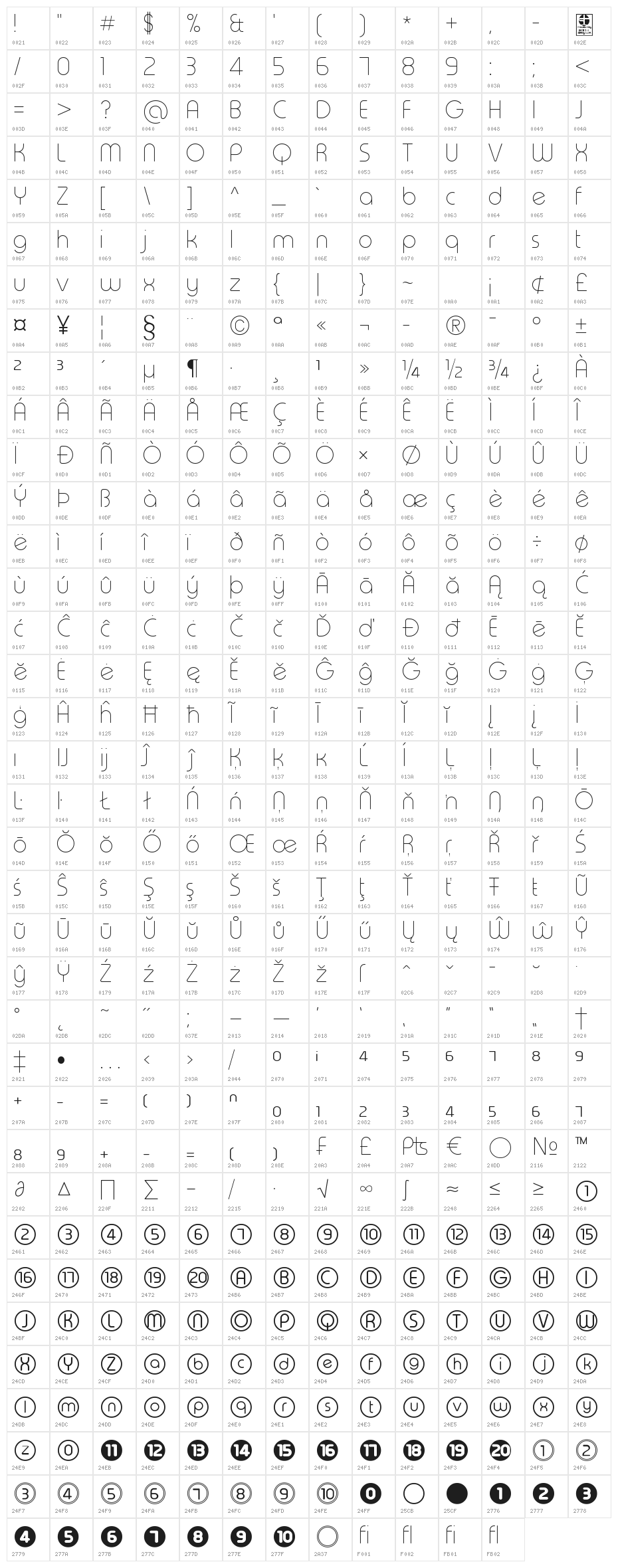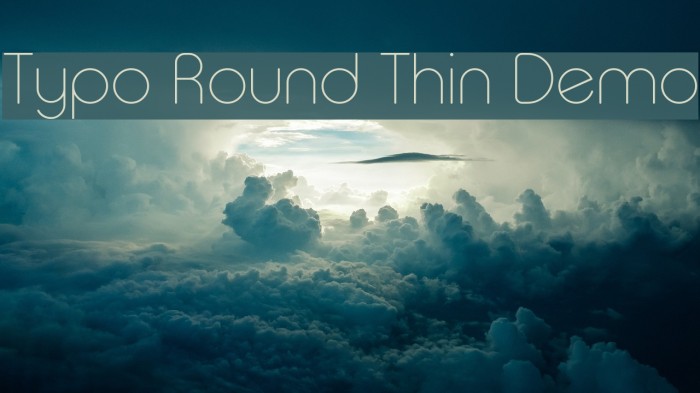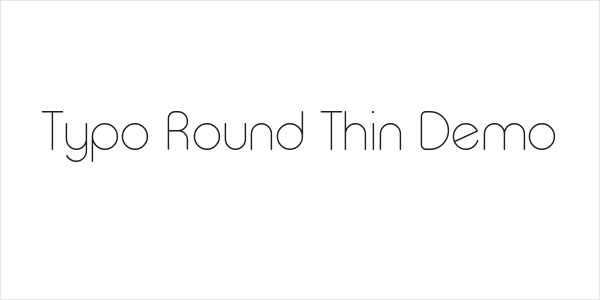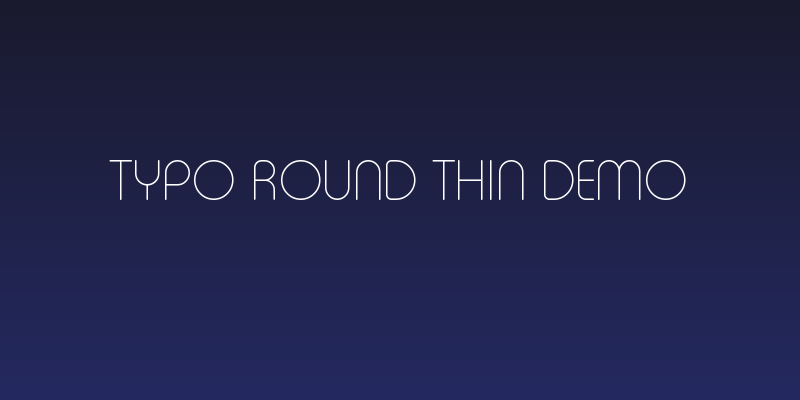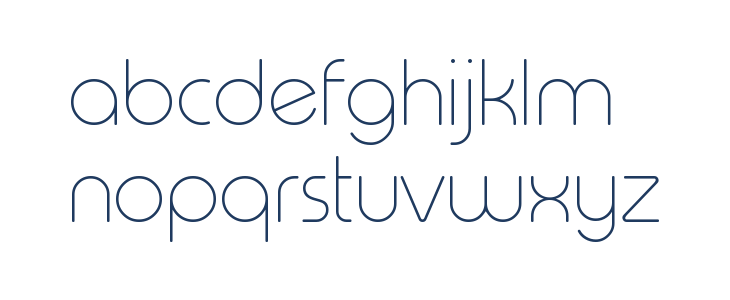
Typo Round Thin Demo Font
Typo Round Thin Demo Description
This font features a sleek and modern design with rounded edges and a thin stroke, giving it an airy and minimalist appearance. The uppercase and lowercase letters maintain a consistent geometric style, with smooth curves and clean lines. The numerals are equally balanced, fitting seamlessly with the overall aesthetic. Special characters are crafted with the same attention to detail, ensuring a cohesive look across all elements. This font's simplicity and elegance make it versatile for various design applications.